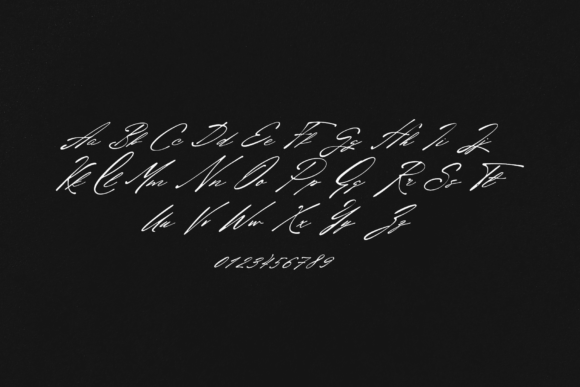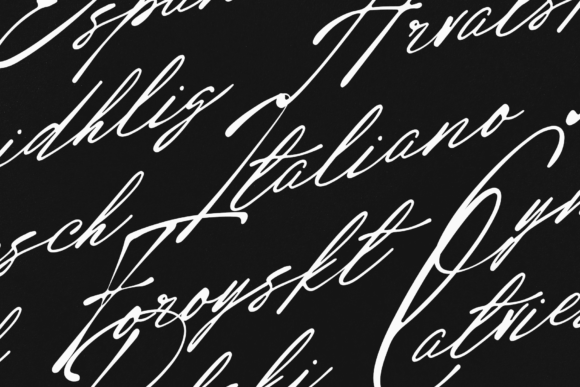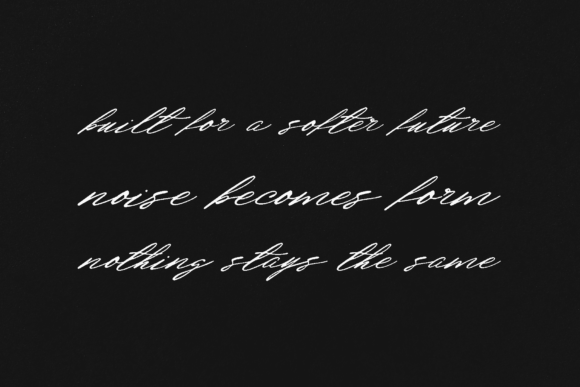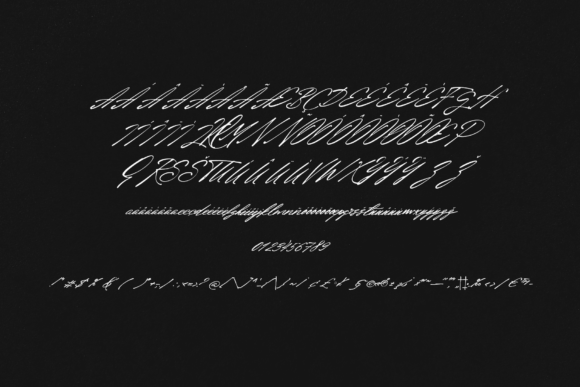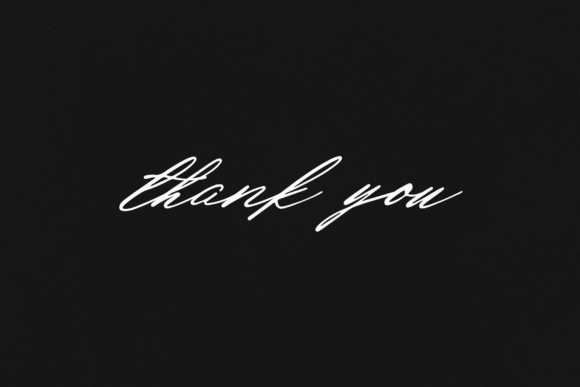
Introduction to Radiant Horizon Font Font
Fonts play a crucial role in design, and the Radiant Horizon Font font is a typeface that brings both character and versatility to any project. Whether you’re working on a branding project, a website, or a print design, the Radiant Horizon Font font offers a unique style that can elevate your work.
Experience the fluid energy of Radiant Horizon, a kinetic signature script designed for speed and flair.
Characterized by its sharp, aggressive slant and sweeping horizontal swashes, this font mimics the effortless stroke of a flexible nib pen Its rhythmic βvibrationβ on the page ensures your headers look spontaneous, energetic, and completely custom-made.
Key Features of Radiant Horizon Font Font
Why Choose Radiant Horizon Font Font?
The Radiant Horizon Font font is more than just a typeface β it’s a design tool that helps you communicate your message with style and clarity. Its unique character set and versatile design make it suitable for a wide range of applications, from elegant invitations to bold headlines.
With its carefully crafted letterforms and balanced proportions, the Radiant Horizon Font font ensures readability and visual appeal across all mediums.
What makes Radiant Horizon Font font special?
The Radiant Horizon Font font stands out with its unique design, exceptional readability, and versatility across various design applications.